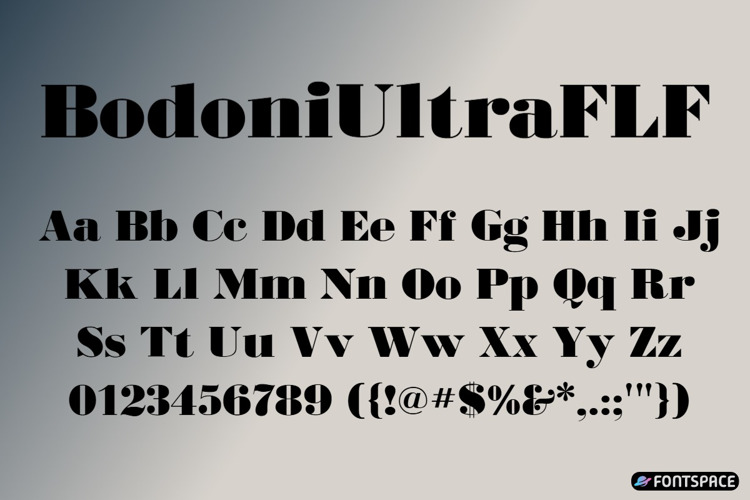
Bodoni Ultra FLF Font
Bodoni Ultra FLF is an ultra-bold Didone serif in the spirit of Giambattista Bodoni's high-contrast letterforms: thick, dark strokes slam into hairline-thin ones, with sharp, flat serifs. It's dramatic at display sizes — built for fashion spreads, magazine mastheads, logos, and packaging that wants a glamorous, high-fashion edge.
Two styles that match: Regular and Medium Italic, both with full A–Z, a–z, 0–9 coverage plus a good set of accented characters. Designed by Richard A. Ware (copyright 1986–92), distributed by Casady & Greene as part of their FLF freeware series.